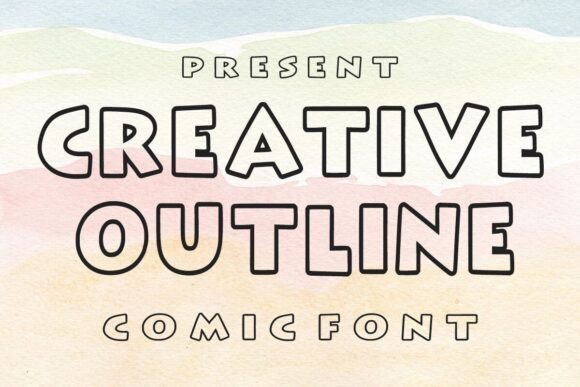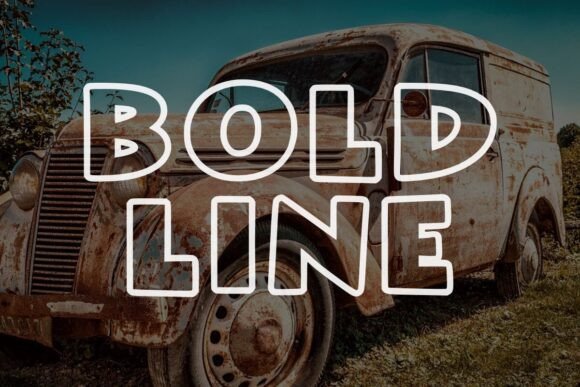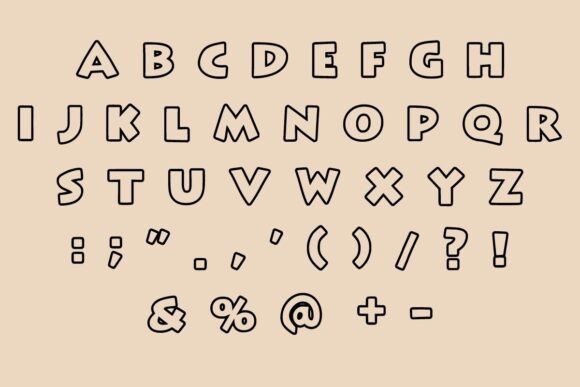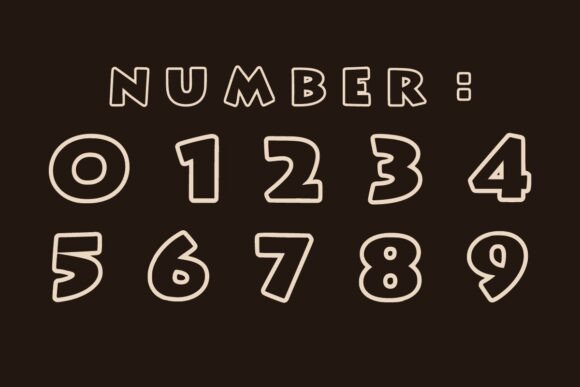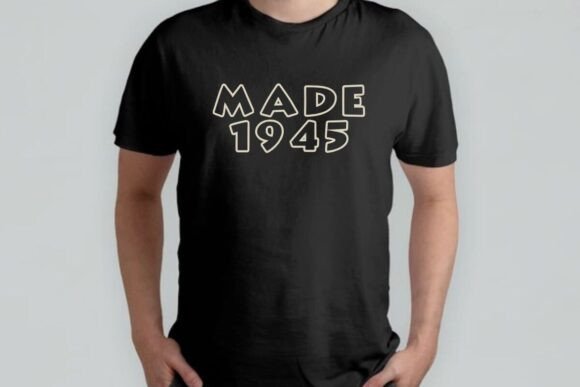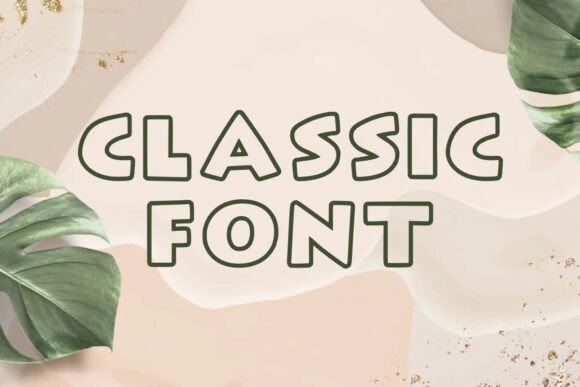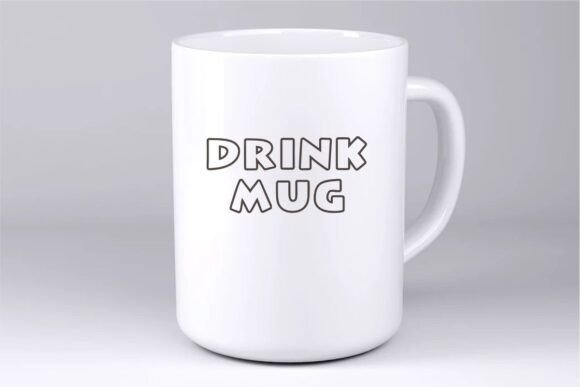
Discover the Joy of Creative Expression
Who else remembers the excitement of rummaging through their art supplies as a kid, eager to bring their imagination to life? The thrill of crafting something new, the satisfaction of seeing your ideas take shape – it’s a feeling that never truly fades. Whether you’re a seasoned artist or just starting to explore your creative side, there’s something special about expressing yourself in a way that’s both fun and meaningful.
That’s where the Creative Outline Font comes in – a bold, playful, and easy-to-read font that’s perfect for bringing your creative vision to life. This versatile font is designed to add a touch of friendliness and whimsy to any project, from digital designs to handmade crafts and everything in between.
As a designer, you know the importance of having the right tools at your disposal. The Creative Outline Font is a valuable addition to any creative arsenal, offering a unique and engaging way to communicate your message and connect with your audience.
Creative Outline Font Key Features
- Unique Character Set: Features a unique set of characters, including alternate glyphs, swashes, and ligatures, allowing designers to add a touch of personality to their work.
- Stylistic Variations: Offers a range of stylistic variations, including bold, italic, and condensed styles, to provide designers with flexibility and creativity.
Designer Review: Creative Outline Font
Overall, I’m quite pleased with the Creative Outline Font. It has a lot of great features that make it a solid choice for designers looking for a unique and functional font.
- Unique design: The font’s outline style gives it a distinctive look that’s perfect for creating eye-catching headings and titles.
- Highly customizable: The font comes in a range of weights and styles, making it easy to adjust to suit different design needs.
- Legibility: Despite its bold appearance, the font is surprisingly easy to read, even at small sizes.
- Not suitable for body text: While the font is great for headings, it’s not ideal for large blocks of text due to its bold, attention-grabbing style.
- Limited language support: Some languages may not be fully supported, which could limit its use in global design projects.
Overall, I think the Creative Outline Font is a great choice for designers who want to add some visual interest to their designs without sacrificing readability. With some careful planning and consideration of its limitations, this font can be a valuable addition to any design toolkit.
Practical Application Guide: Creative Outline Font
For best results, use Creative Outline Font in combination with bold or italic text to create visual interest.
- Creating eye-catching headings and titles
- Adding a touch of elegance to wedding invitations and event materials
- Designing modern and minimalist logos
Alternatives to Creative Outline Font
Open Sans is a clean, modern sans-serif font designed for digital use. It’s suitable for a wide range of applications, from body text to headings. Open Sans is more versatile than Creative Outline Font, as it comes in multiple weights and is highly legible even at small font sizes.
When to use: Body text, headings, and titles.
For optimal readability, we recommend using a font size between 12-14 points and a line height of 1.2-1.5 times the font size. This will ensure that the text is easy to read and the outline effect is visible.
Q: Can I customize the outline effect of Creative Outline Font?
Yes, the outline effect of Creative Outline Font can be customized using the font’s OpenType features. You can access these features in design applications that support OpenType, such as Adobe Creative Cloud. The outline effect can be adjusted using the “Outline” and “Outline Width” features.